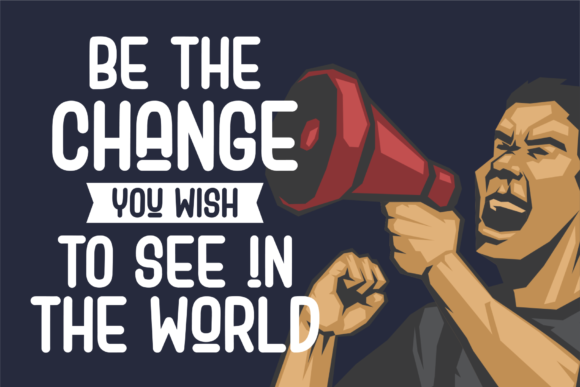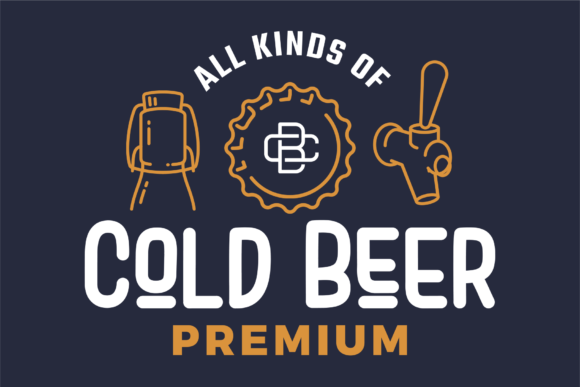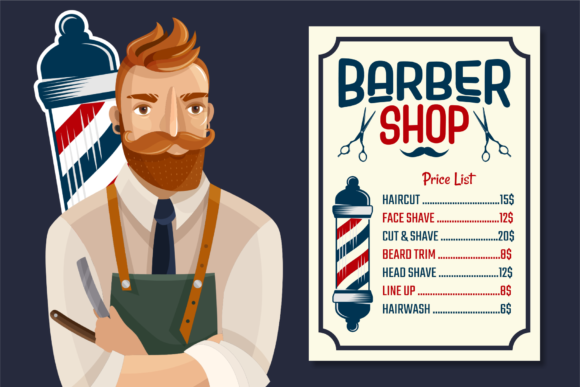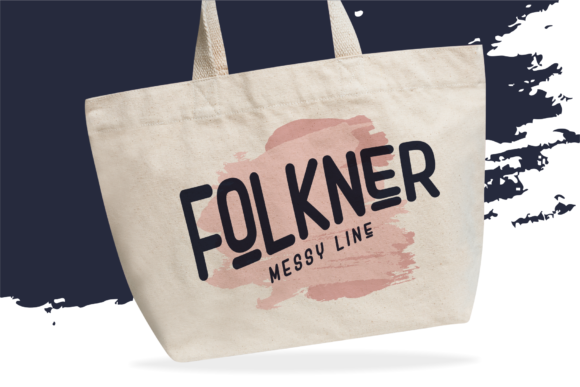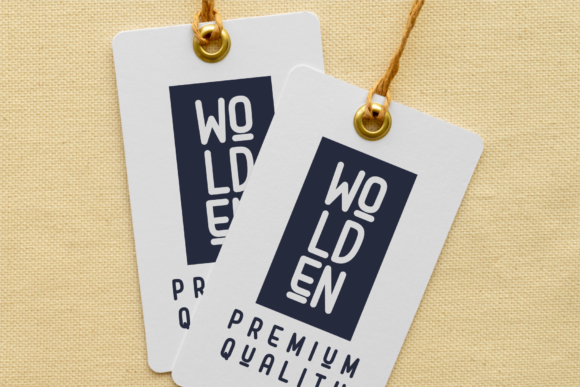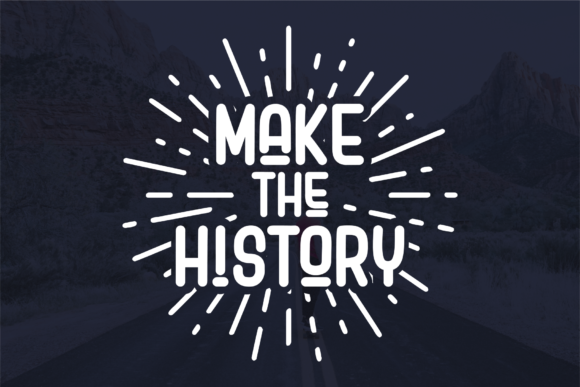
The Grandury Font: A Modern Display Font to Elevate Your Designs
I’ll never forget the time I was working on a project for a client who wanted a playful, yet modern font to represent their brand. I spent hours scouring the internet for the perfect font, but nothing seemed quite right. That was until I stumbled upon the Grandury font. With its friendly and adaptable nature, it instantly elevated my design and exceeded my client’s expectations. In this article, I’ll share with you why I’m obsessed with the Grandury font and how you can make the most of its endless variations.
An Honest Review of Grandury Font
- ✨ Its modern and cool display style, perfect for making a statement
- ✅ Friendly and playful vibe, great for designs that need a bit of personality
- 💡 Endless variations, thanks to its OpenType features and glyphs
- 🎨 Adaptable to various design styles, from minimalist to elaborate
While Grandury is an amazing font, there are a few things to keep in mind:
- 🤔 Some characters may not work well in very small sizes, due to its intricate design
- ⚠️ Limited availability of certain language scripts, so double-check before use
A Practical Guide to Using Grandury Font
- Experiment with OpenType features, such as stylistic alternates and glyphs, to add visual interest
- Explore OpenType features, such as ligatures and stylistic sets, to add depth to your design
The Story Behind Grandury Font
Grandury was designed with the intention of creating a modern display font that’s both friendly and adaptable. Inspired by the latest design trends and a passion for typography, the creator of Grandury aimed to craft a font that’s perfect for creative projects, branding, and advertising. While the true story behind Grandury may be unknown, its impact on the design community is undeniable.
| What type of designs is Grandury best suited for? | Grandury is perfect for creative projects, branding, advertising, and any design that needs a modern and playful touch. |